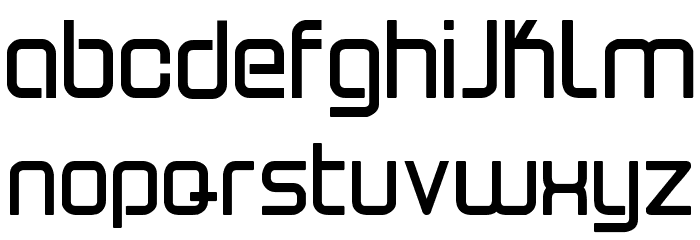
estro1 Font
This font features a modern, geometric design with a distinctively futuristic feel. The characters are constructed with clean, straight lines and rounded corners, creating a harmonious blend of sharpness and softness. The uppercase and lowercase letters maintain a consistent height, contributing to a uniform appearance. The font's structure is open and airy, providing excellent readability. Its unique style is characterized by a minimalistic approach, making it suitable for contemporary design projects. The numerals and special characters follow the same design principles, ensuring a cohesive look across all text elements.
A modern, geometric font with clean lines and rounded corners, offering a futuristic and minimalistic style.
• Proposed Projects: Ideal for technology branding, modern web design, futuristic posters, and innovative product packaging.